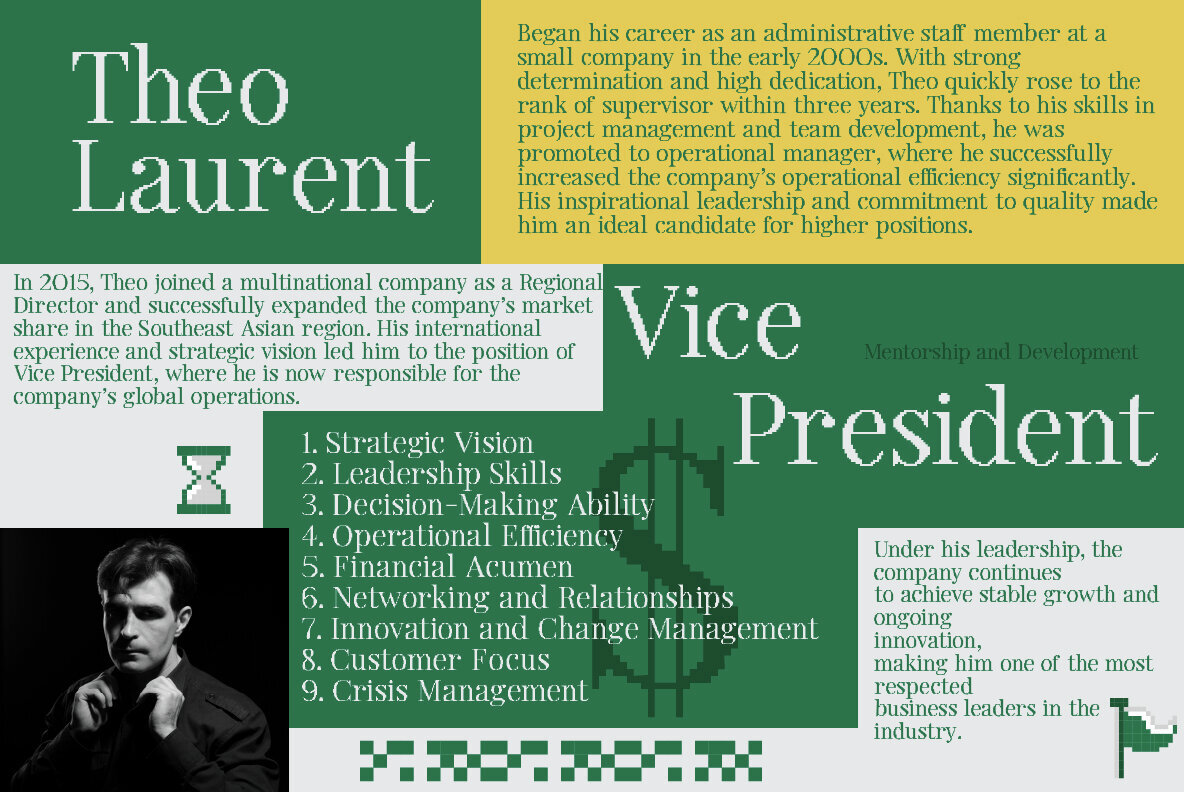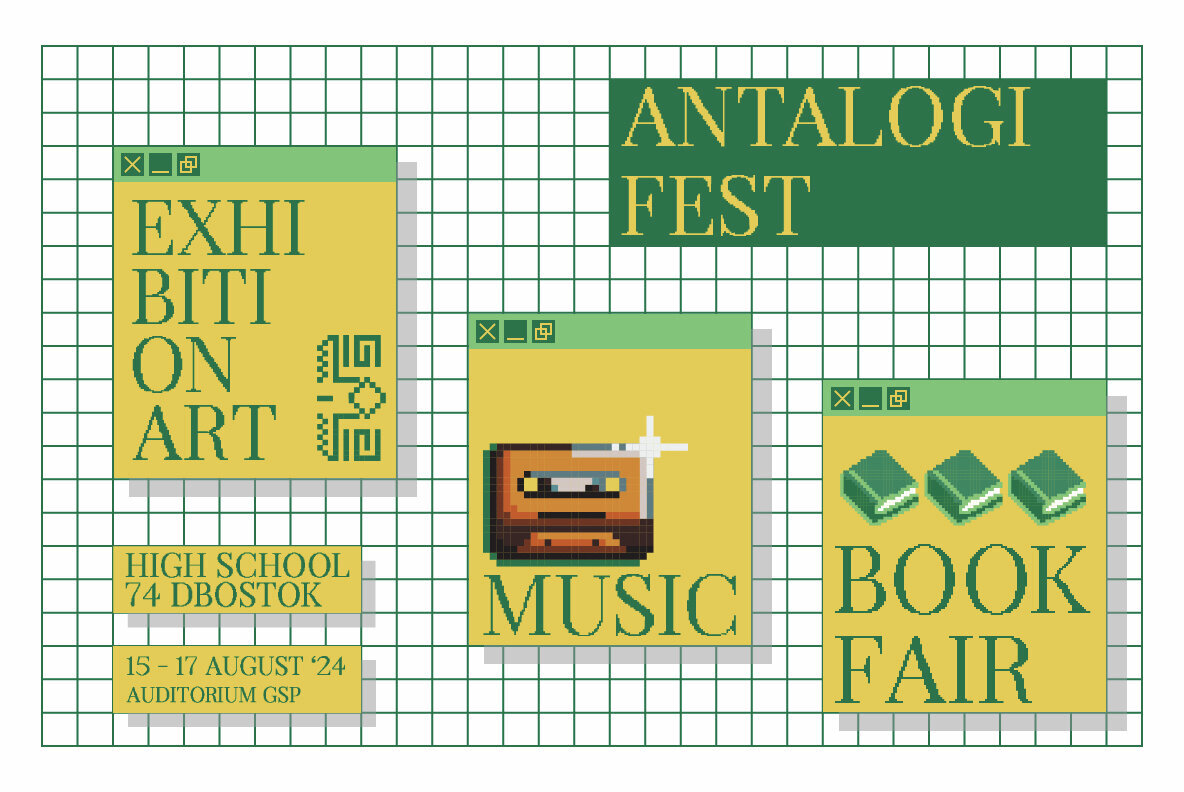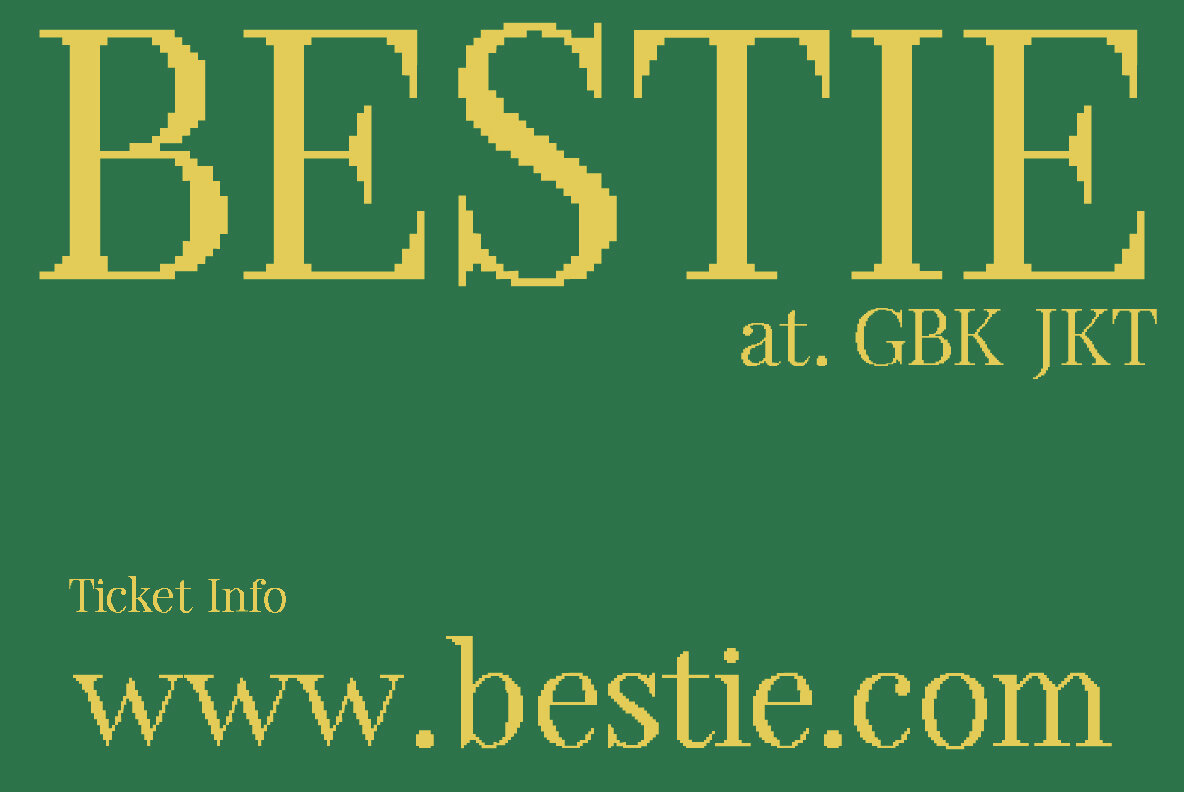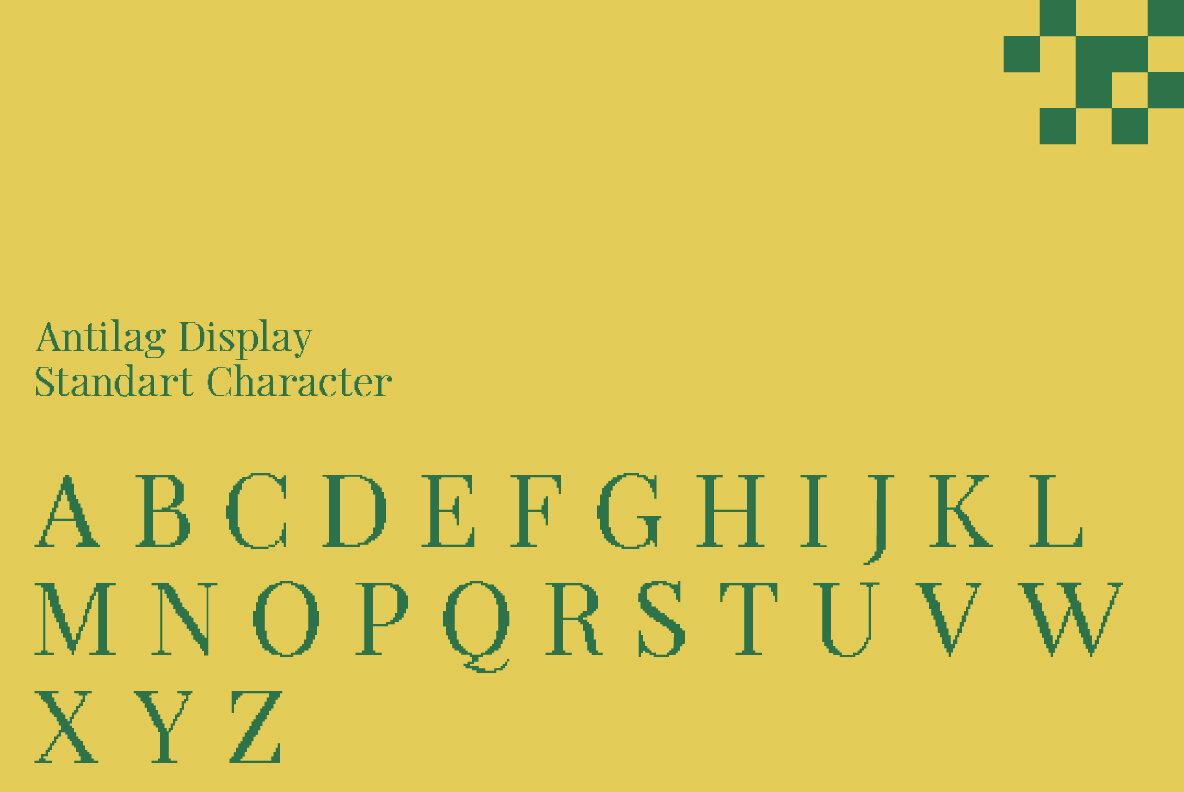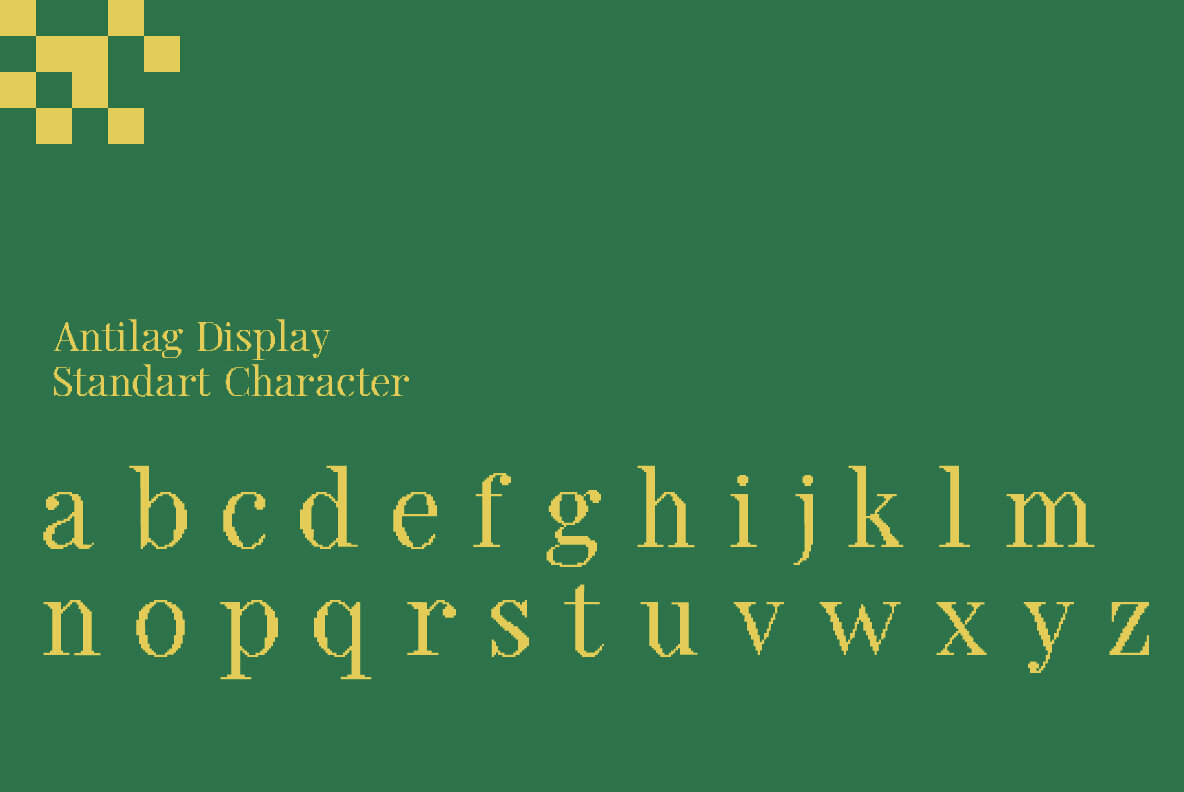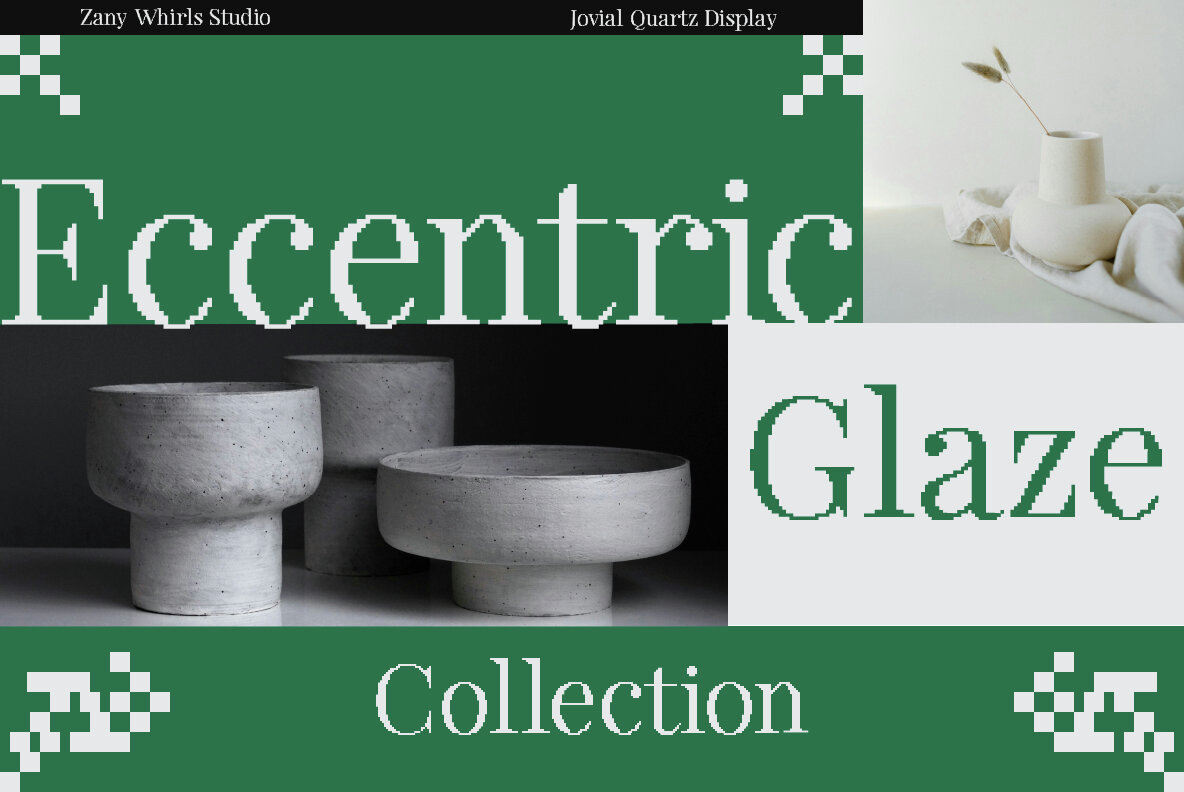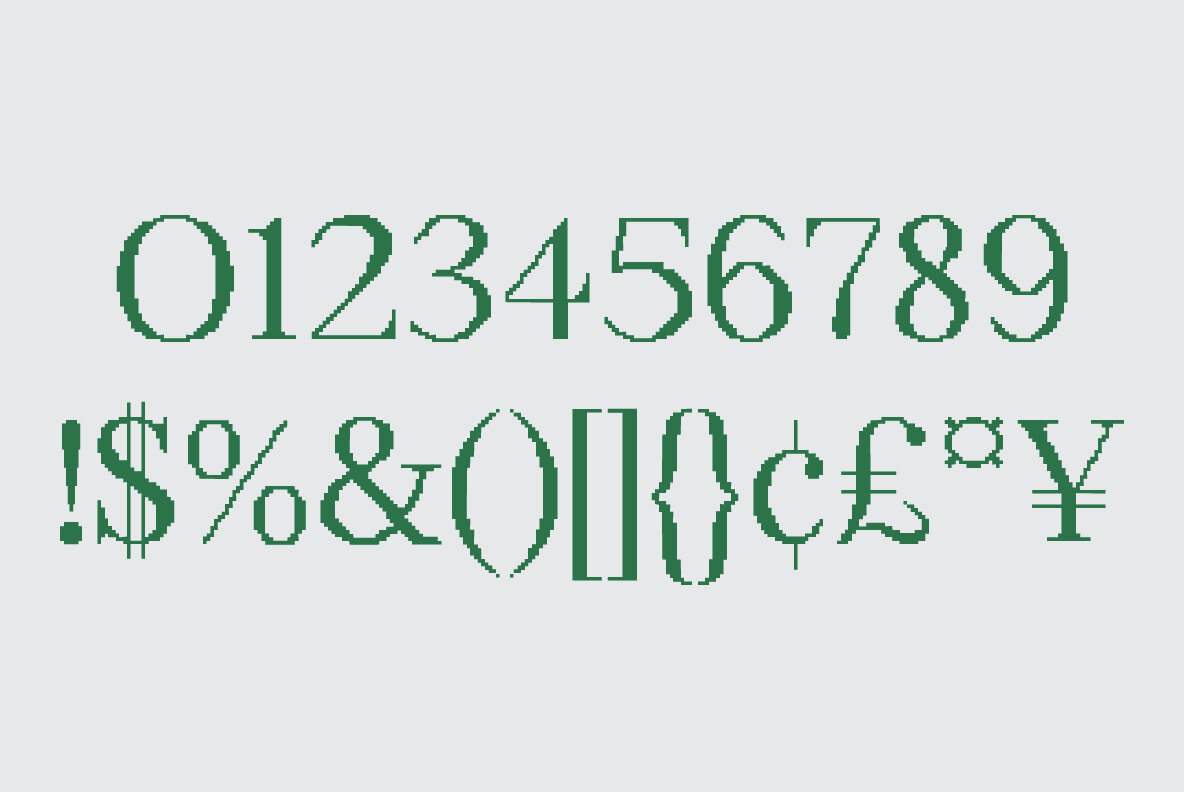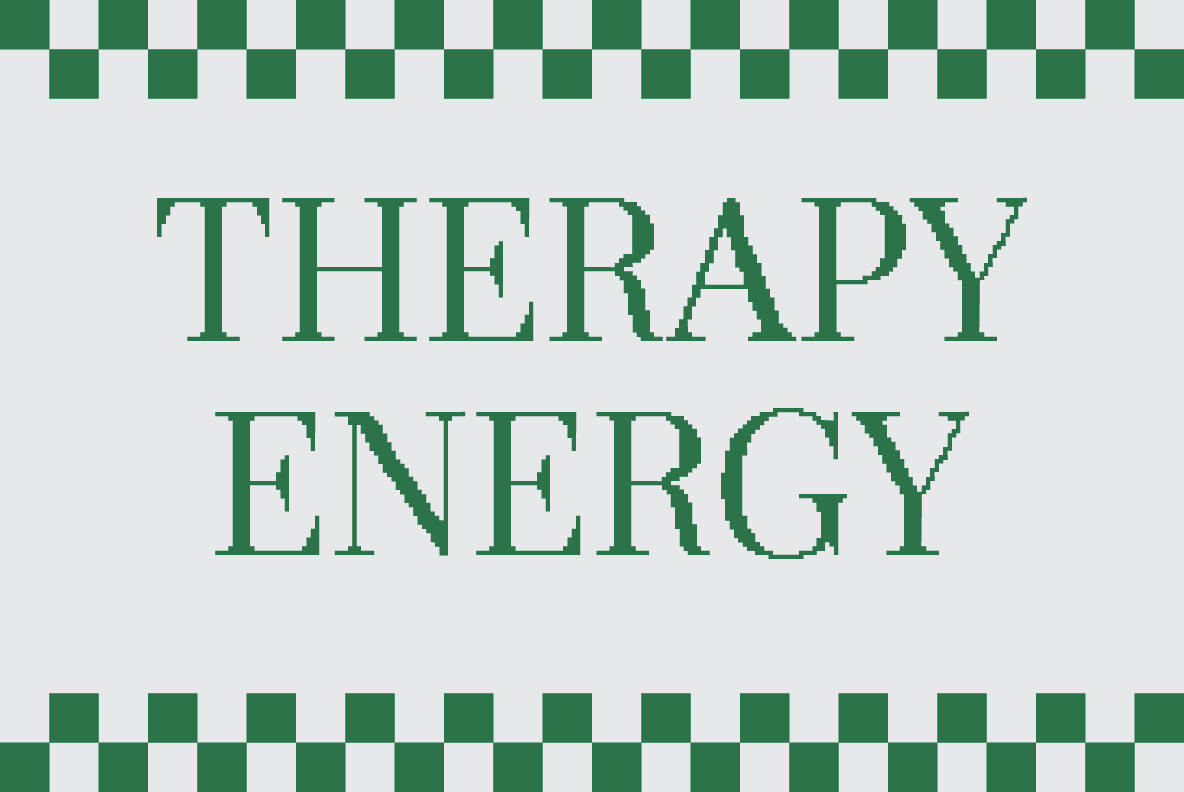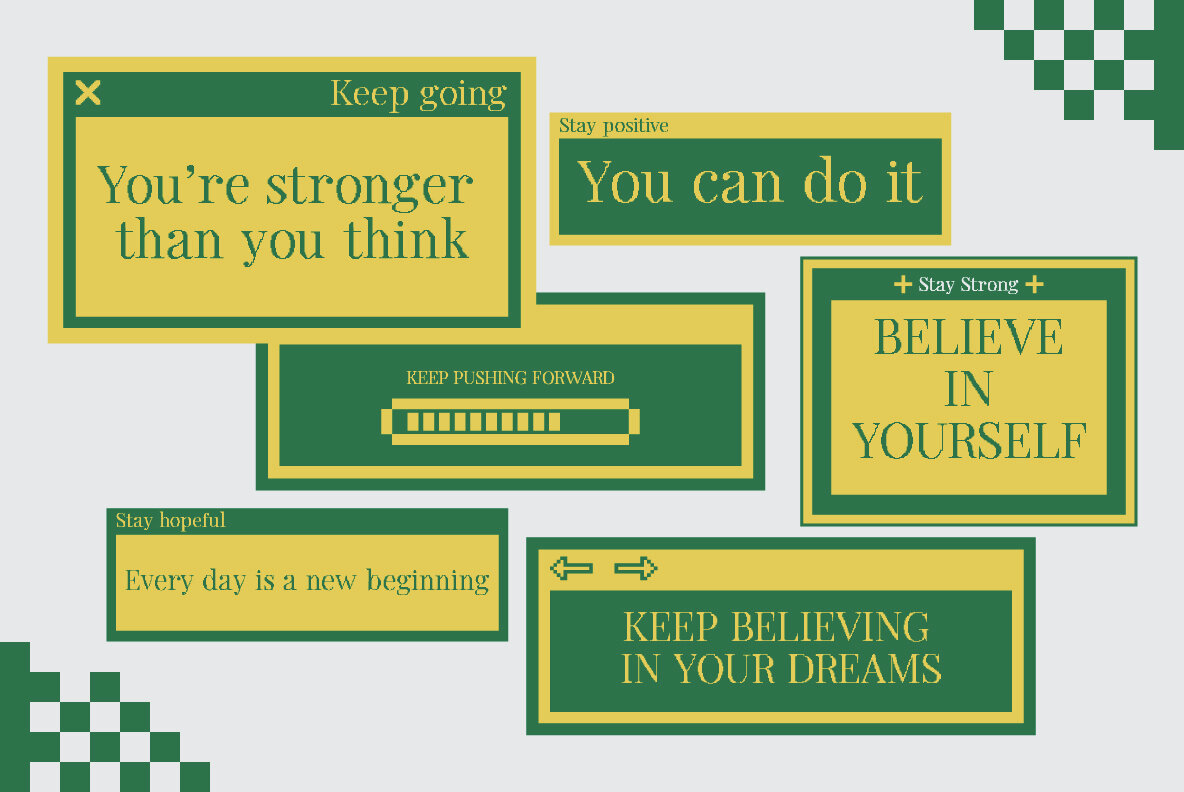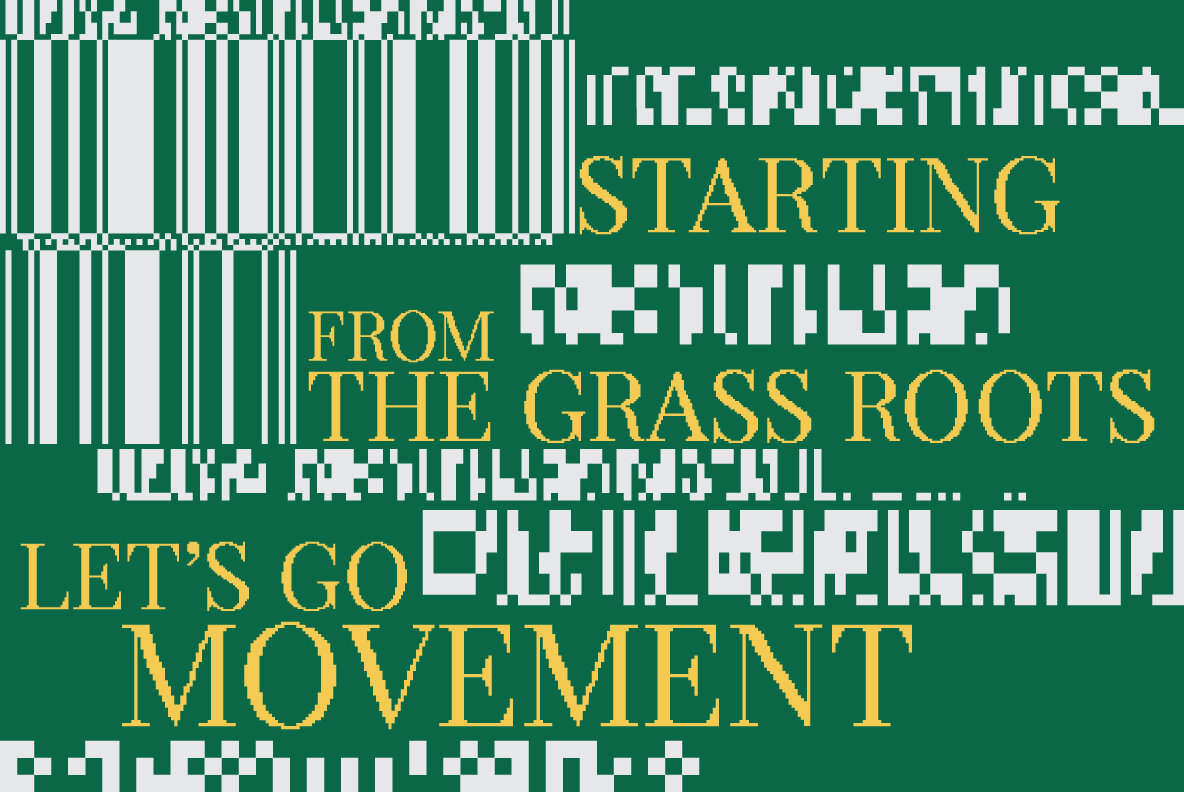
Antilag Font
Antilag Regular
Antilag a unique pixel font that seamlessly blends vintage and retro aesthetics with a modern twist. Inspired by the resurgence of pixel art in 2024, Antilag captures the nostalgic charm of early digital design while incorporating the elegance of serif typography. Drawing inspiration from the beloved Playfair Display font, Antilag reimagines its classic character forms in a pixelated style. Antilag stands out with its pixelated design, offering a fresh take on serif fonts. Each character is meticulously crafted to maintain readability and elegance, making it a versatile choice for various design applications. Whether used in branding, publishing, advertising, or digital media, Antilag adds a distinctive and memorable touch to any project. Embrace the retro revival with Antilag and experience the perfect fusion of past and present. Its pixelated serif style makes it ideal for designers looking to infuse their work with a blend of vintage charm and modern sophistication.